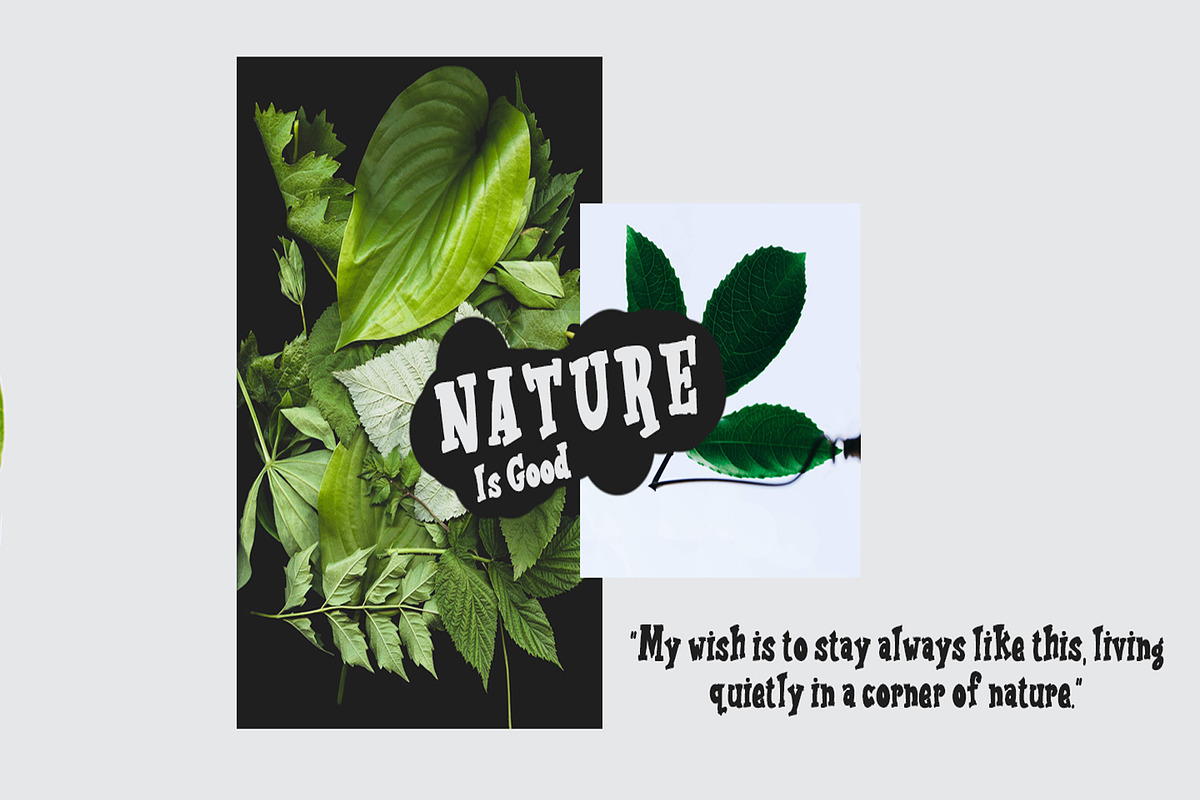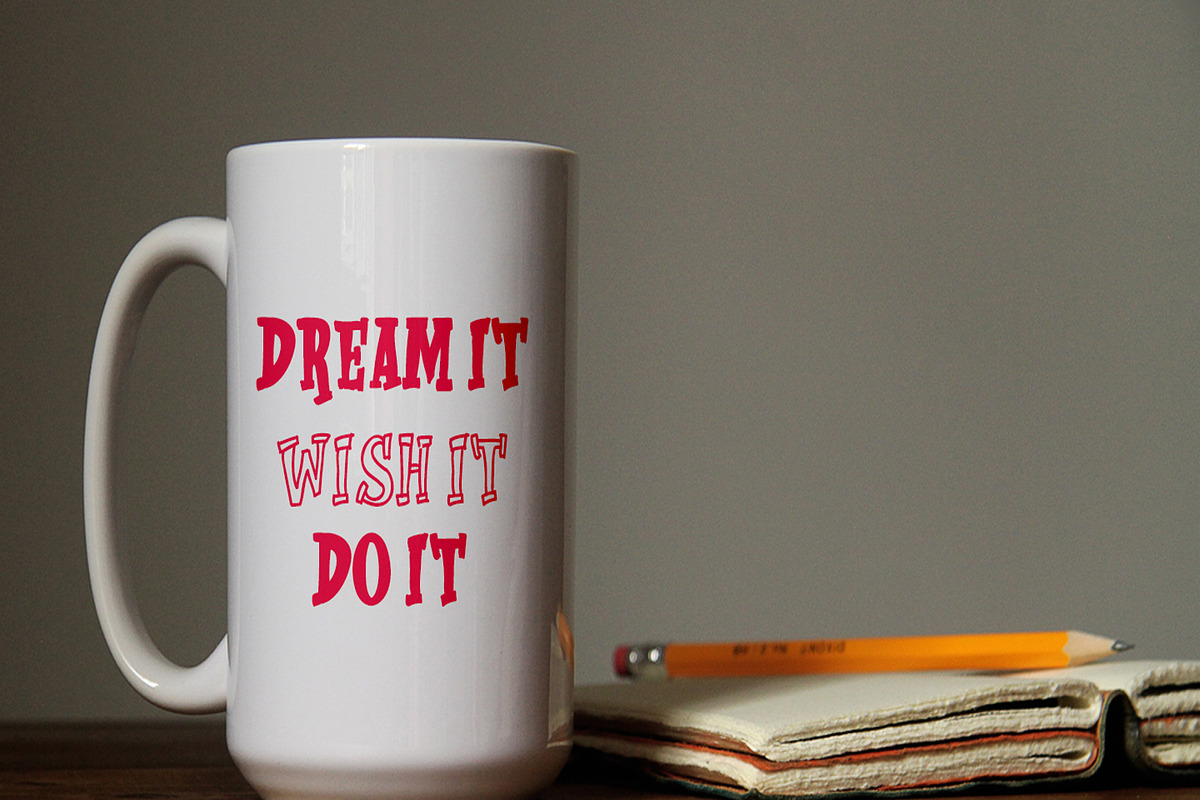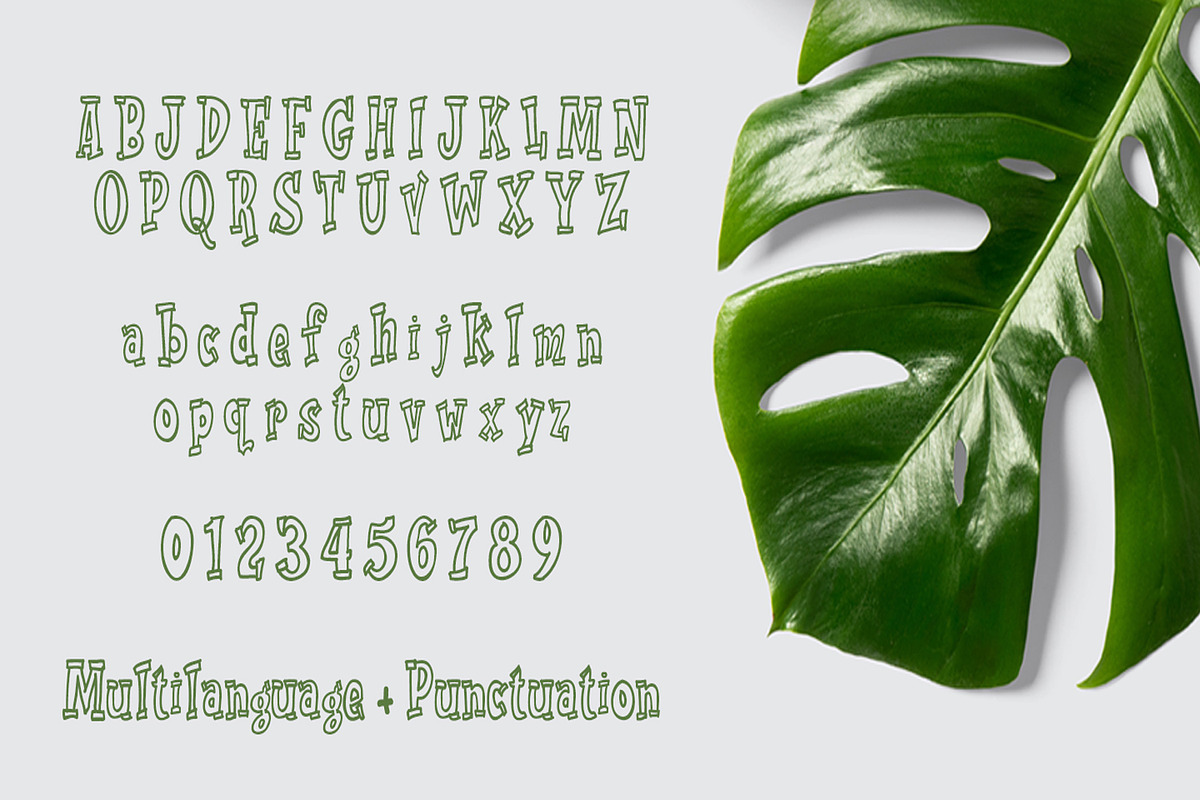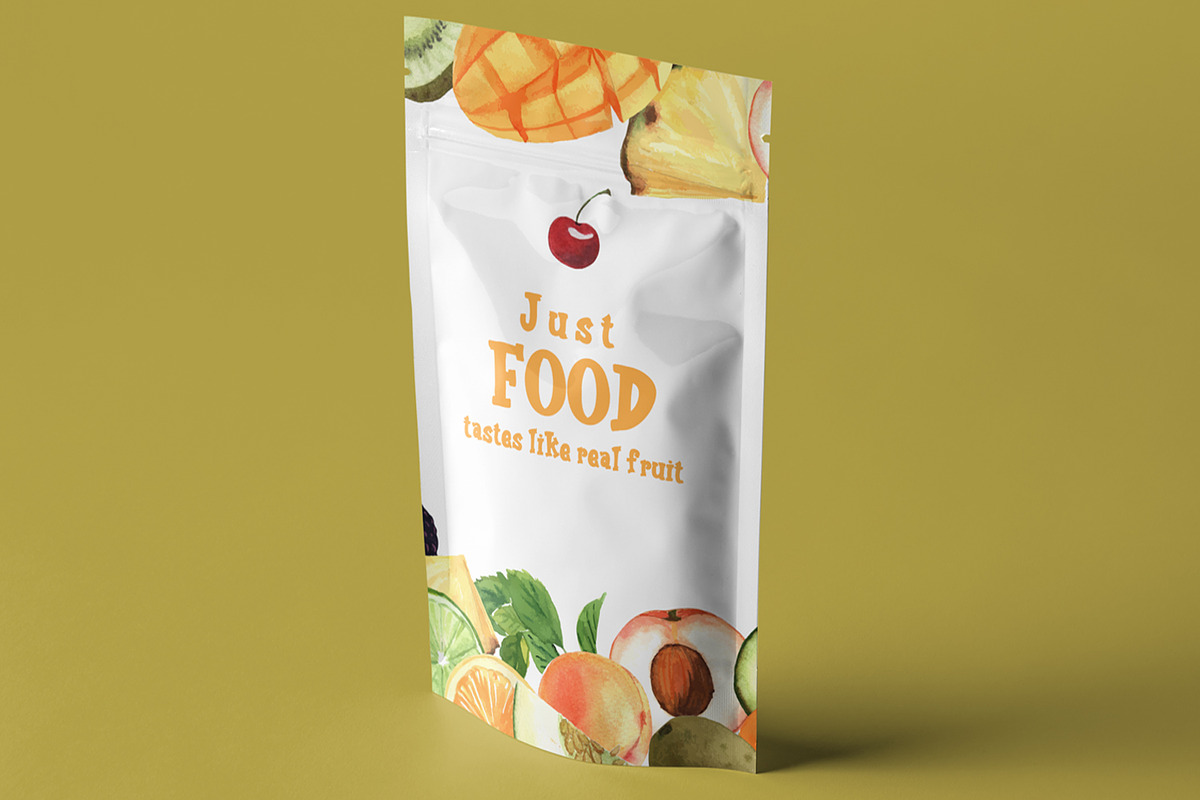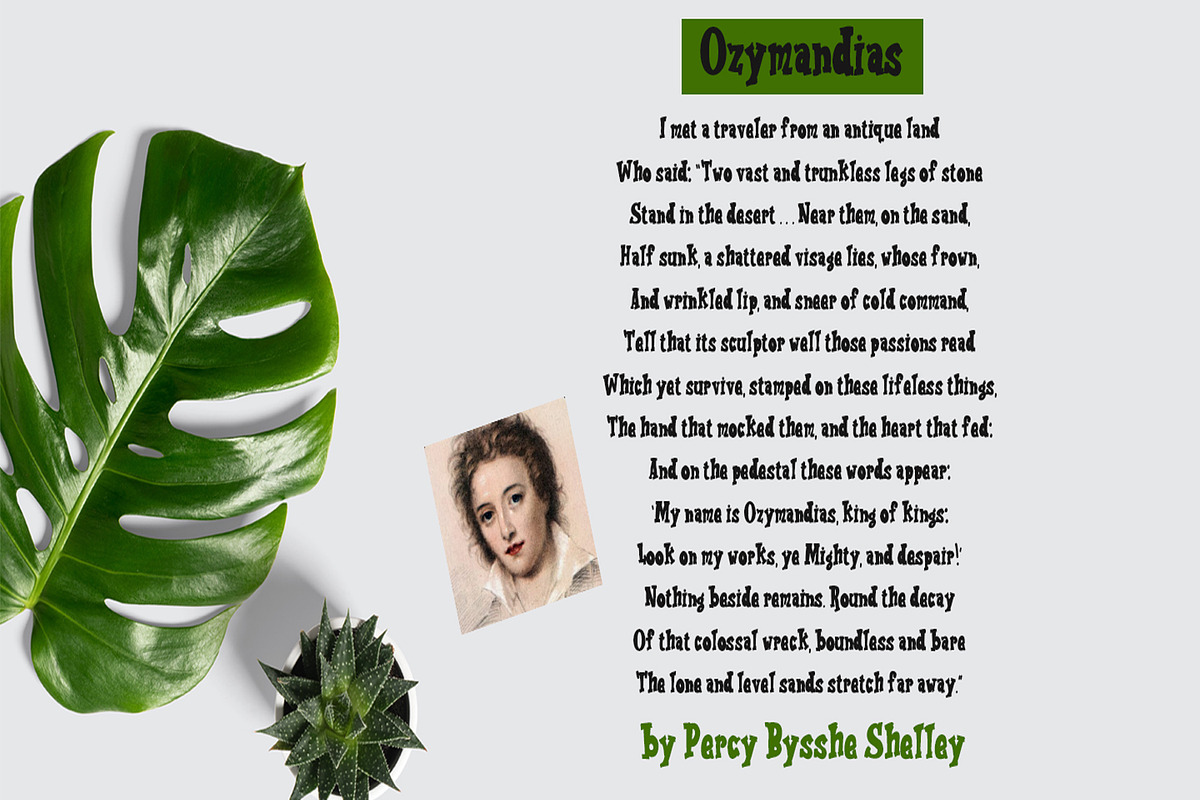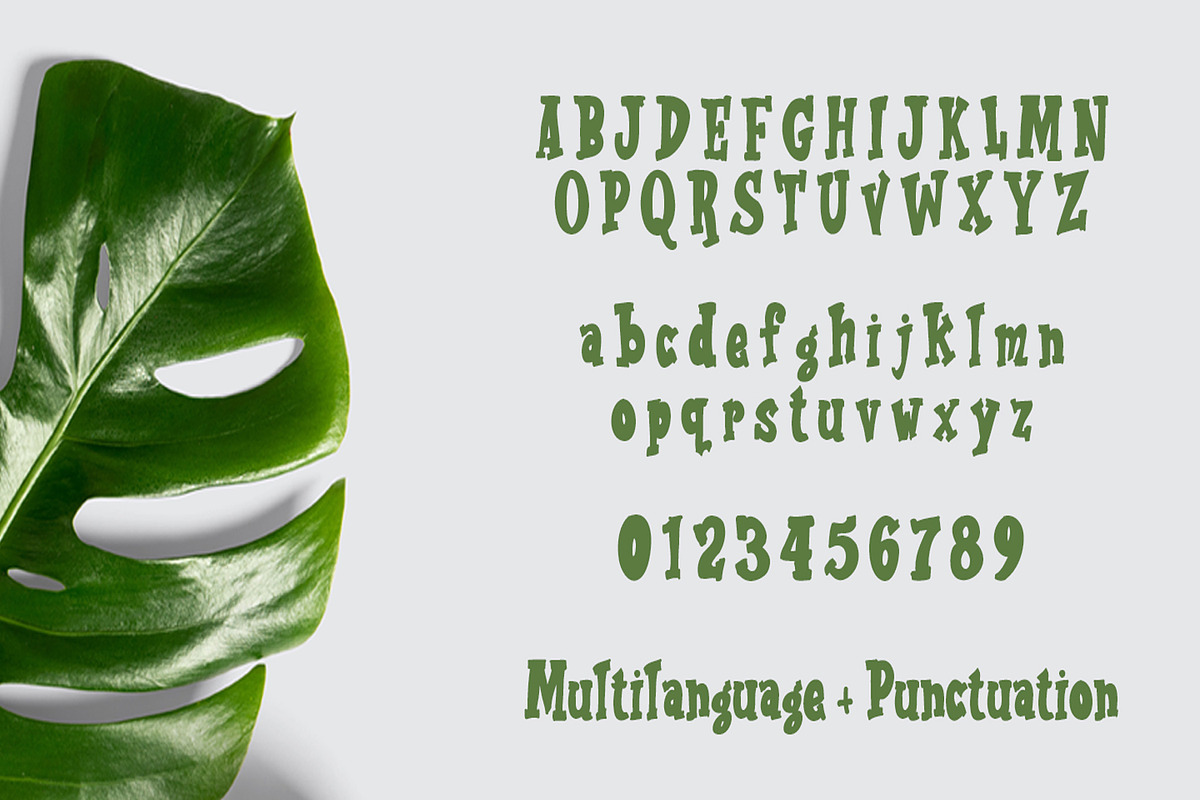
Ravioli Display Font 2 Style
Ravioli combines fun fonts that will easily turn any design idea into a stand out! Fall in love with this adorable and versatile font family!
- Ravioli Regular
- Ravioli Outline Outline